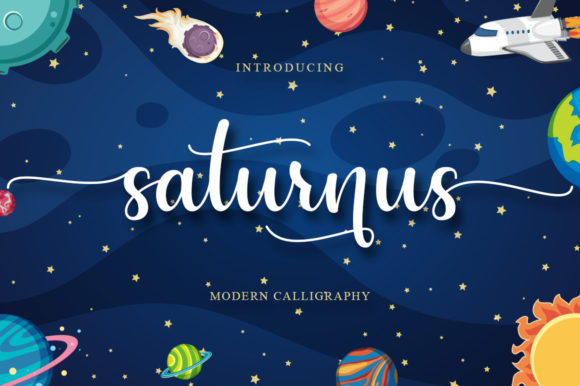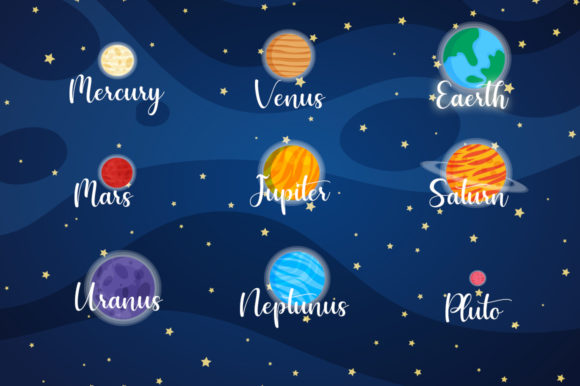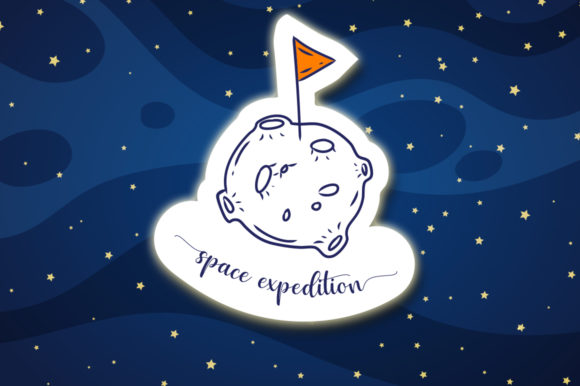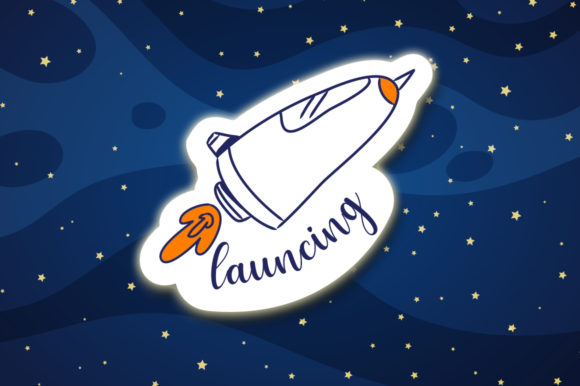
About Saturnus Font
Saturnus is a sweet and flowing handwritten font. It looks stunning on wedding invitations, thank you cards, quotes, greeting cards, logos, business cards and every other design which needs a handwritten touch.